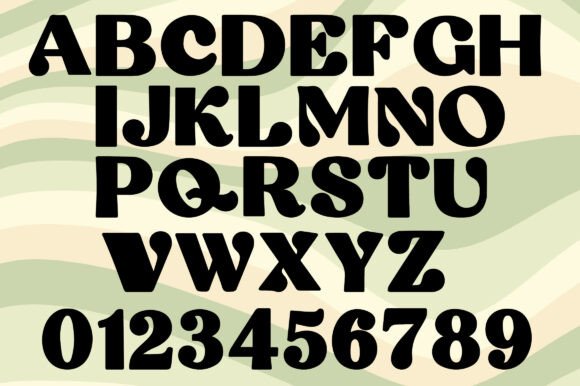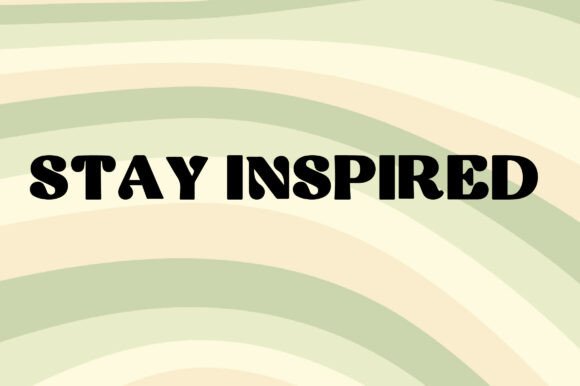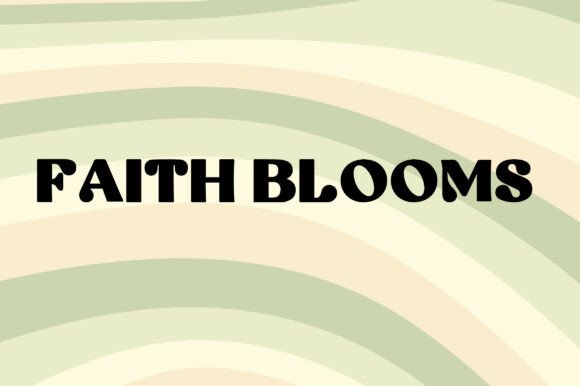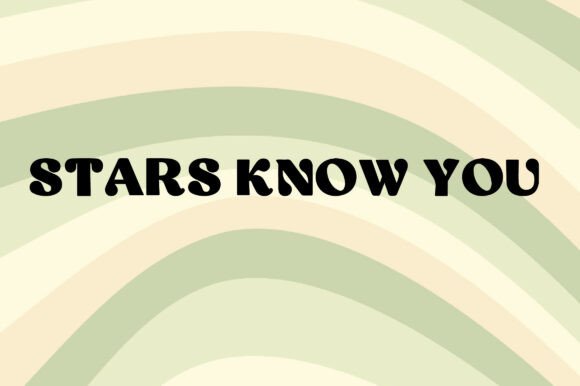
The Ultimate Guide to Autumn Font: A Bold and Beautiful Typeface
I’ll never forget the design struggle I faced while working on a logo project for a client’s autumn-themed cafe. I wanted a font that would evoke the warmth and coziness of the season, but everything I tried seemed either too generic or too over-the-top. That’s when I stumbled upon the Autumn Font – a game-changer for any design project that needs a bold and memorable typeface.
First Impressions: A Retro-Inspired Masterpiece
The Autumn Font is a bold decorative display font with a retro-inspired style and strong artistic character. Its uppercase letterforms feature thick black strokes, smooth rounded corners, and distinctive curved terminals that create a fun, stylish, and eye-catching look. Designed with uppercase letters A–Z and numbers 0–9, this font is perfect for logos, branding, posters, packaging, headlines, social media graphics, and creative projects that need a bold and memorable typeface.
Here’s what I love about the Autumn Font:
- ✨ Unique and eye-catching design: The font’s retro-inspired style and bold strokes make it stand out from more generic fonts.
- 💥 High versatility: The Autumn Font can be used for a wide range of design projects, from logos to social media graphics.
And here are some small quirks or limitations:
- 🤔 Limited character set: The font only includes uppercase letters A–Z and numbers 0–9, which may limit its use for certain projects.
- ⚠️ No OpenType features: The Autumn Font does not include advanced OpenType features, which may be a drawback for some designers.
The Story Behind the Autumn Font
The Autumn Font was designed by a team of creatives who wanted to capture the warmth and coziness of the autumn season. Inspired by vintage posters and classic typography, they created a font that would evoke feelings of nostalgia and comfort. The result is a bold, decorative font that’s perfect for designs that need a touch of personality.
| Author | MOMAT THIRTYONE |
| What is the Autumn Font? | The Autumn Font is a bold decorative display font with a retro-inspired style and strong artistic character. |
| What characters are included in the Autumn Font? | The Autumn Font includes uppercase letters A–Z and numbers 0–9. |